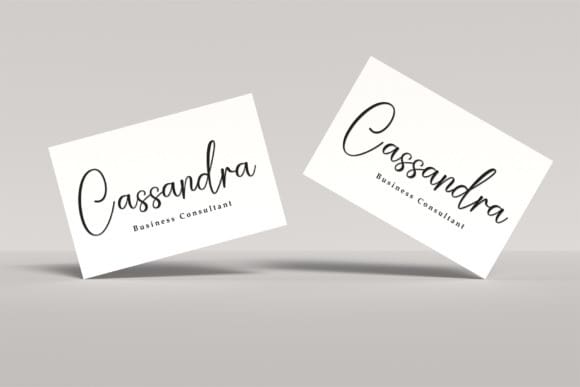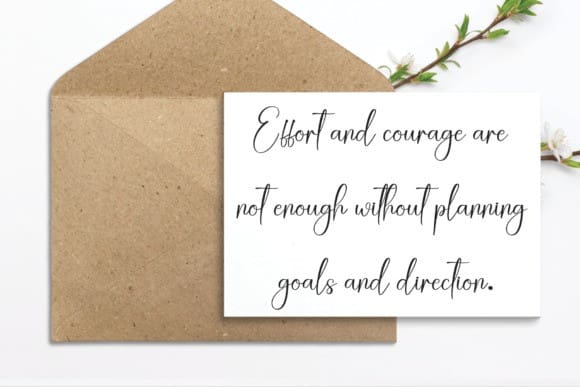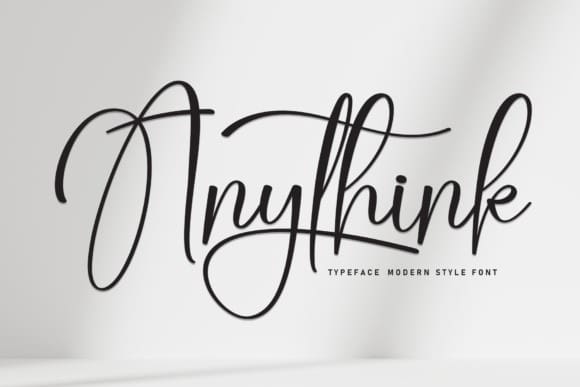
Anythink Calligraphy Font
Anythink Calligraphy Font, is a sweet and friendly handwritten font. Its natural and unique style makes it incredibly fitting to a large pool of designs. The only limit is your imagination!